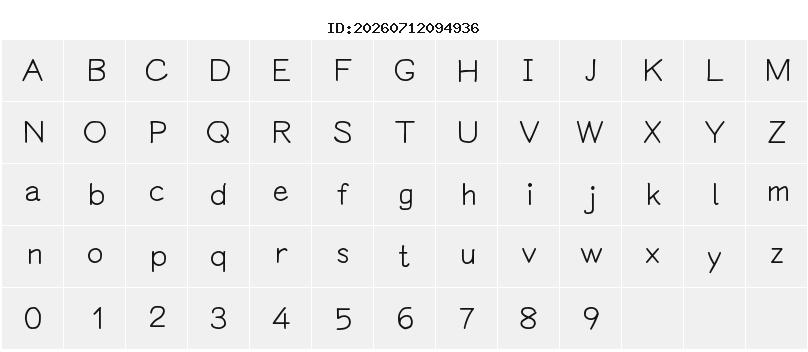
悠哉字体 Preview
• Font Name: 悠哉字体
• Font ID: Yozai:Version 0.863
• Full Font Name: Yozai
• Version: Version 0.863;May 27, 2025
• PostScript Name: Yozai-Regular
• Designer: LXGW / Y.OzVox
• Manufacturer: LXGW / Y.OzVox
About 悠哉字体.ttf
悠哉字体.ttf is a modern, elegant sans-serif font designed for ultimate readability and visual harmony. Perfect for branding, headlines, web design, and print materials.